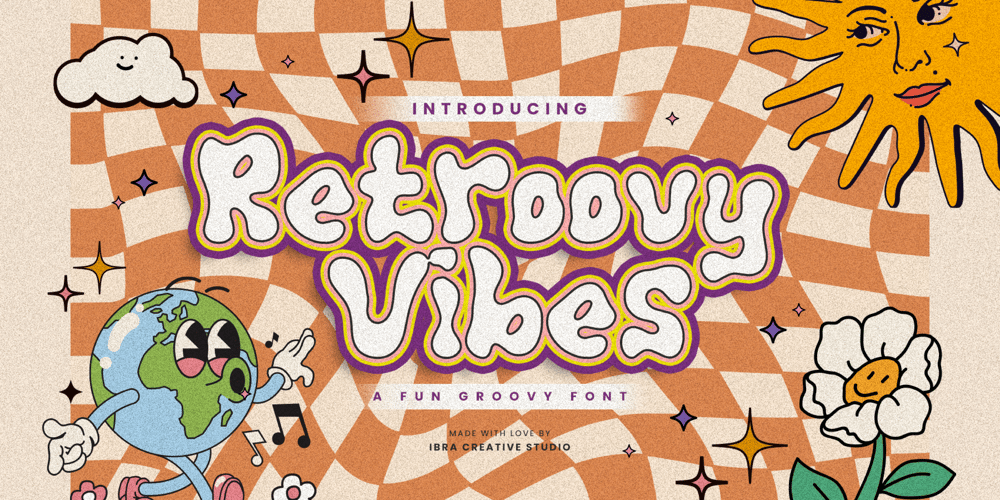
Retroovy Vibes Font Family was designed by Roisatul Azizah and published by IbraCreative. Retroovy Vibes contains 1 styles and family package options. Retroovy Vibes is a playful and groovy font that encapsulates the spirit of fun and nostalgia. Inspired by the retro era, this font oozes a sense of carefree charm and vibrant energy. Retroovy Vibes is the perfect choice for projects that aim to evoke a sense of lightheartedness and a vintage vibe. Its bouncy and whimsical appearance makes it ideal for posters, album covers, and party invitations, injecting a dose of retro coolness to any design.